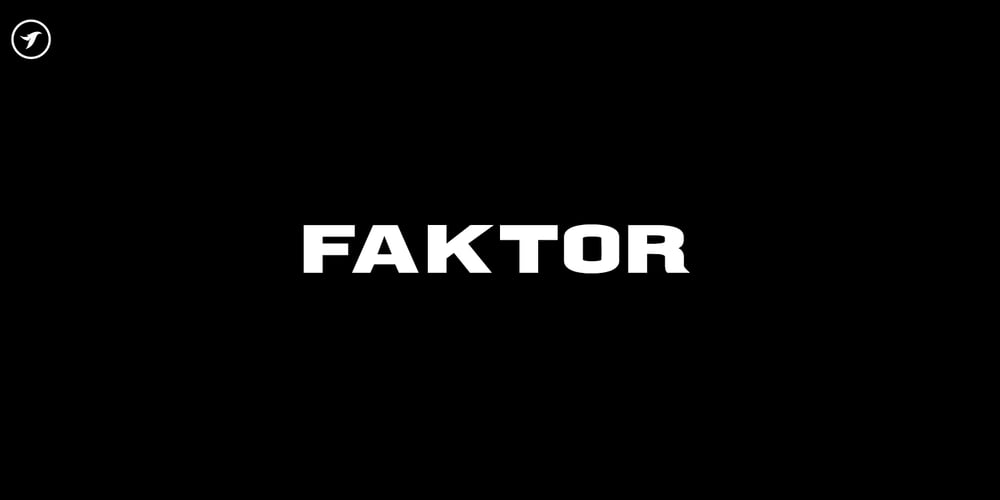
Faktor Display
Faktor Display font
Faktor Display Font Family was designed by Jean Johnson and published by Designova. Faktor Display contains 2 styles and family package options. FAKTOR is a bold display/headline typeface dedicated to big text, movie posters, catchy headings, hero text, product marketing, branding, logotypes & display usage. This all-caps typeface is also perfect for creating outstanding logos, promotional content and marketing graphics that can grab your clients’ attention. Please see the examples above to get an idea about the capability of this typeface.